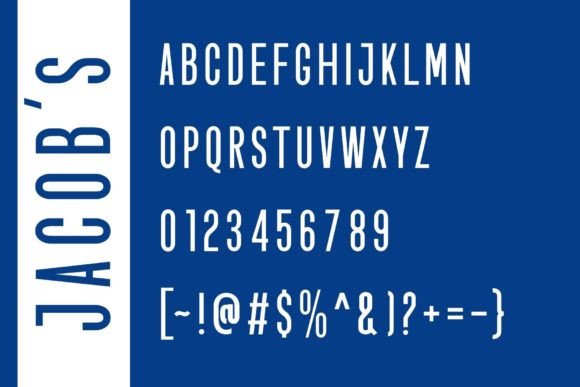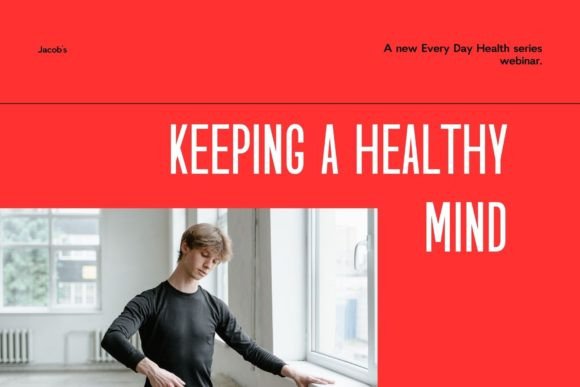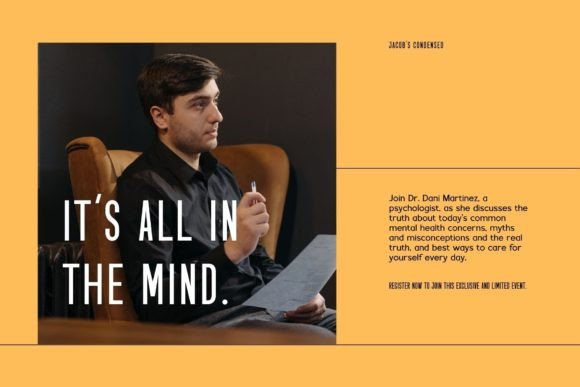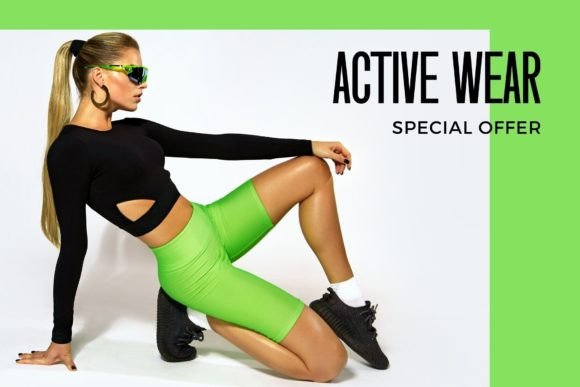
Discover the Timeless Elegance of Jacob’s Font
Have you ever stared at a blank sheet of paper, waiting for the perfect font to inspire your next creative project? For many designers, that moment of clarity comes when they stumble upon a font that perfectly captures the essence of their vision. For us, that moment came when we discovered Jacob’s Font – a beautiful series of letters that exude modernity and elegance.
Jacob’s Font is more than just a collection of letters; it’s a tool designed to help writers and designers create stunning pieces that leave a lasting impression. Its clean lines, precise shapes, and harmonious proportions make it a valuable asset for any creative project. Whether you’re writing a novel, designing a brochure, or crafting a logo, Jacob’s Font is the perfect companion to help you bring your ideas to life.
Jacob’s Font Key Features
- Font Family: Jacob’s Font is a sans-serif font family.
- Character Count: The font family includes a wide range of characters, including Latin, Cyrillic, and Greek alphabets.
- Font Size and Resolution: Designed to work well at various font sizes, with optimal results at 12-24 points and resolutions up to 300 DPI.
- Unique Characteristics: Jacob’s Font features a distinctive, modern design with clean lines and a neutral tone, making it suitable for a wide range of applications, including corporate branding, publishing, and digital interfaces.
Review of Jacob’s Font
As a designer, I’ve had the chance to play around with Jacob’s Font, and I’ve got some thoughts to share. Here’s the breakdown.
- Legibility: Jacob’s Font is incredibly easy to read, even at smaller font sizes. The letterforms are clear and well-spaced, making it perfect for body text.
- Modern feel: The font has a sleek, contemporary vibe that’s perfect for modern designs. It’s great for branding, advertising, and digital products.
- Font weight options: Jacob’s Font comes in a range of weights, from light to bold, giving you plenty of flexibility for different design needs.
- Lack of italic and script options: While the font has a modern feel, it’s a bit limited in terms of style options. I’d love to see more italic and script variants to add some personality to designs.
- Not ideal for traditional publishing: Jacob’s Font is a digital font, and it may not be the best choice for traditional publishing, such as book covers or print magazines.
Overall, I think Jacob’s Font is a solid choice for modern designs, especially digital products. While it’s not perfect, its legibility and modern feel make it a great addition to any designer’s toolkit. With some additional style options, I think it could be a top contender in the font world.
Getting the Most Out of Jacob’s Font
To get the most out of Jacob’s Font, use it in conjunction with bold and italic text to create visual hierarchy and emphasis.
Also, experiment with different font sizes and colors to create a unique and eye-catching design.
Jacob’s Font is ideal for use in:
1. Bodoni
Bodoni is a classic serif font known for its elegant and refined appearance. It’s often used in high-end designs, such as luxury fashion magazines and corporate brochures. Compared to Jacob’s Font, Bodoni has a more formal and sophisticated feel, making it suitable for designs that require a sense of luxury and sophistication.
2. Playfair Display
Playfair Display is an elegant and luxurious serif font that’s perfect for adding a touch of sophistication to designs. It’s often used in high-end branding, invitations, and wedding stationery. Compared to Jacob’s Font, Playfair Display has a more ornate and decorative feel, making it suitable for designs that require a sense of opulence and grandeur.
3. Didot
Didot is a classic serif font that’s known for its elegant and refined appearance. It’s often used in high-end designs, such as luxury fashion magazines and corporate brochures. Compared to Jacob’s Font, Didot has a more formal and sophisticated feel, making it suitable for designs that require a sense of luxury and sophistication.